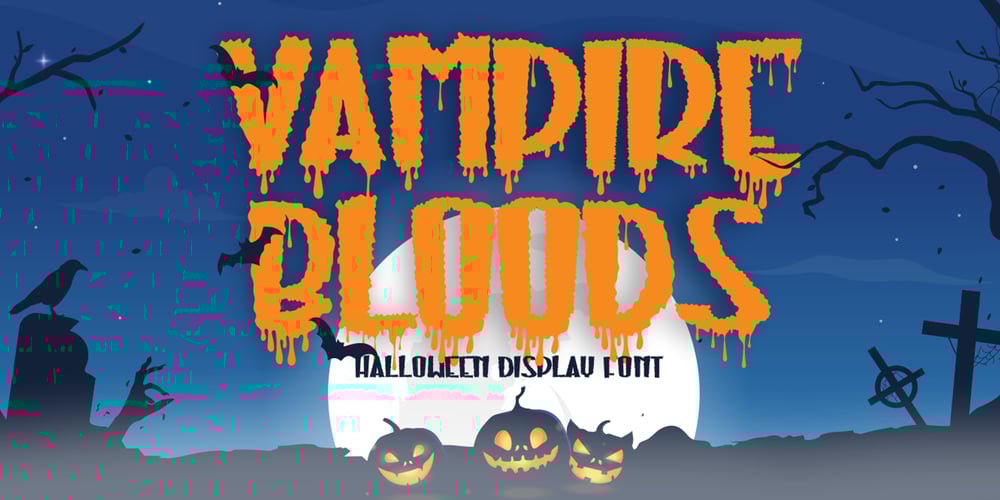
Vampire Bloods Drip
Vampire Bloods Drip Font Family was designed by Sipanji and published by Sipanji21. Vampire Bloods Drip contains 2 styles and family package options. Vampire Bloods is an incredibly unique horror display font with 2 style Font are Dripping and solid style with jagged Outline. Add this font to your favorite Halloween themed ideas and notice how it makes them come alive. Vampire Bloods is perfect for posters, packaging, banners, advertising, apparel, and more.